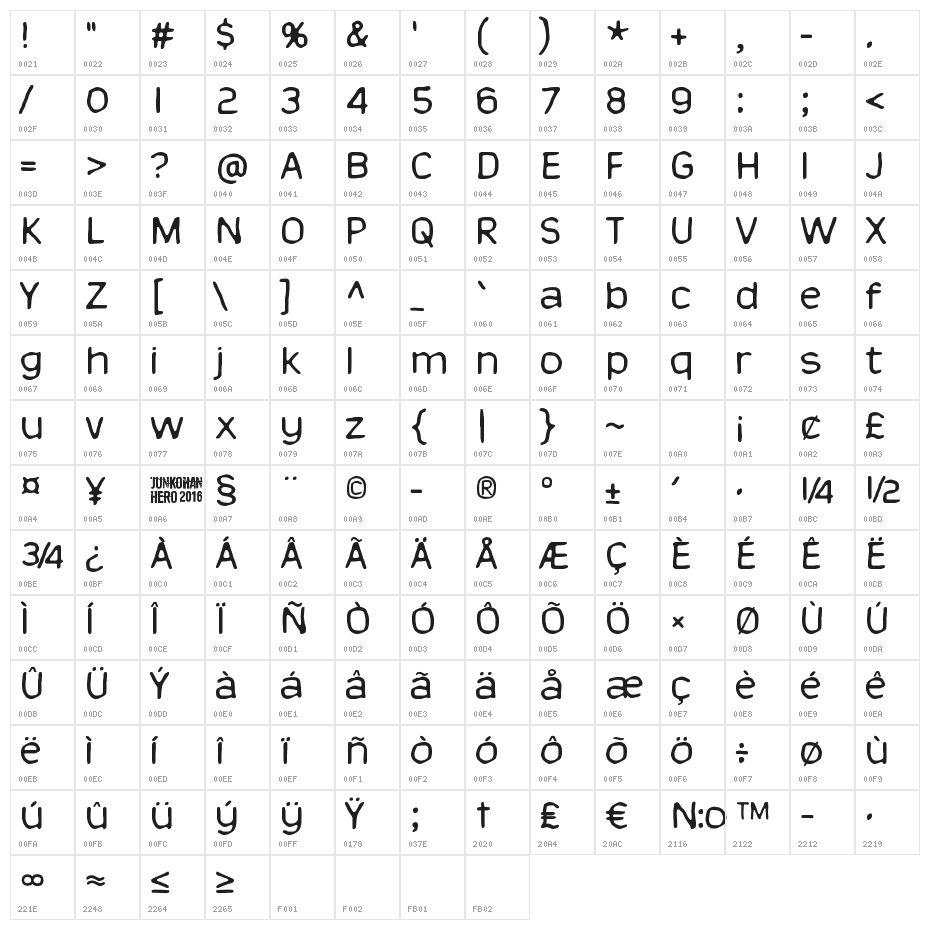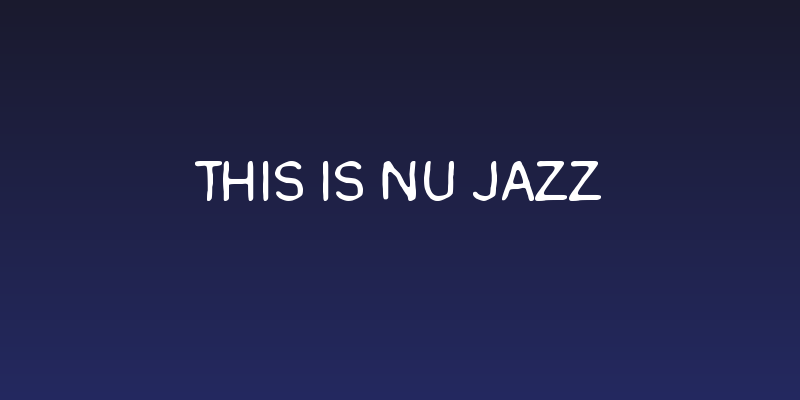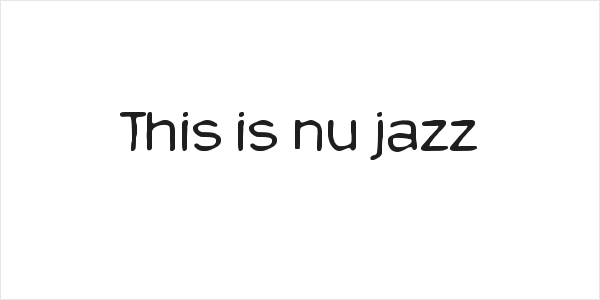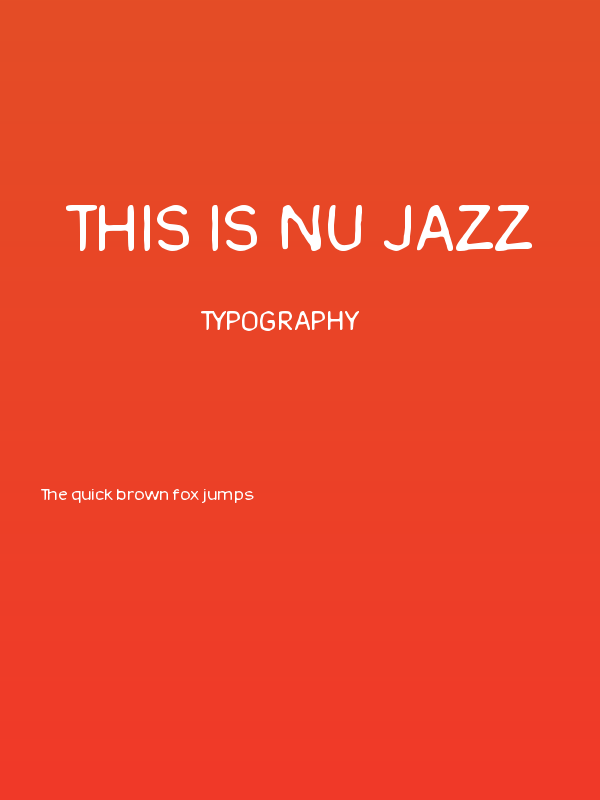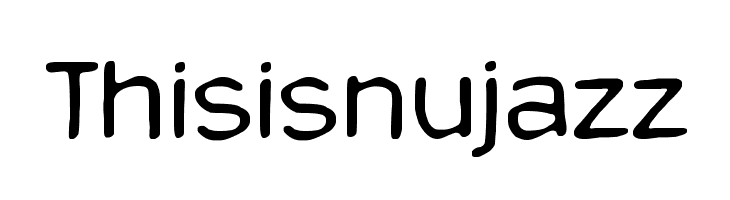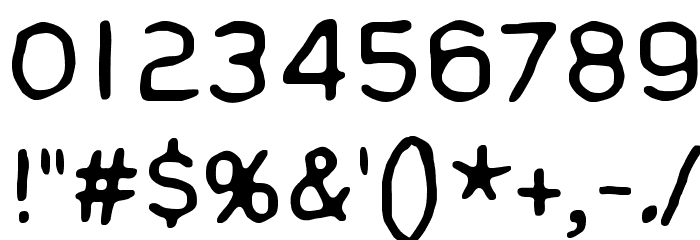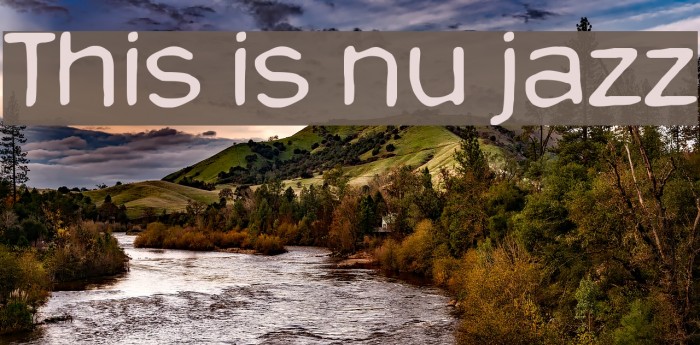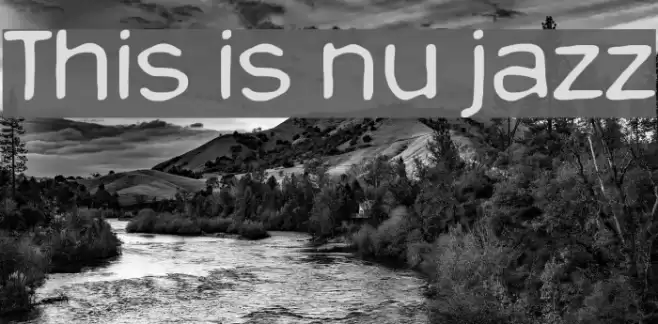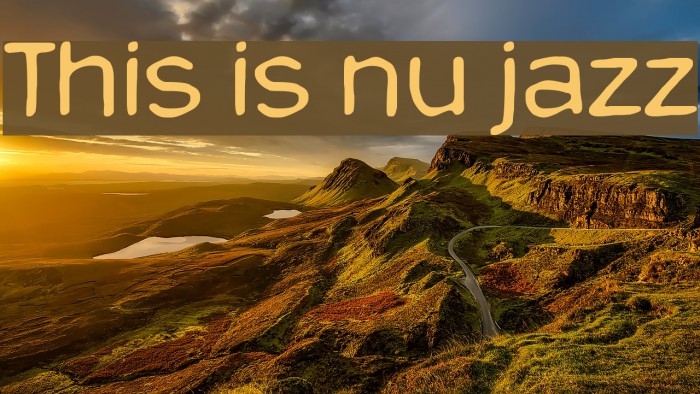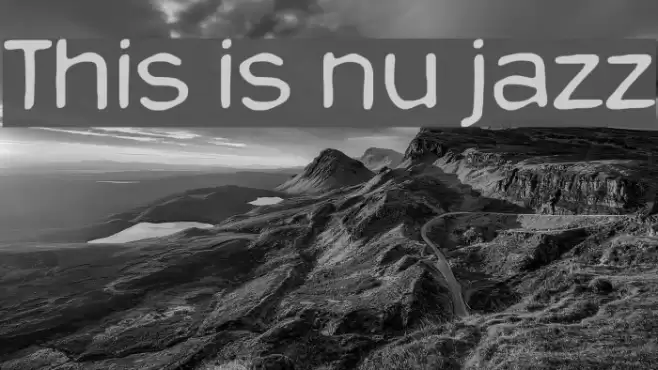
This is nu jazz Font
| Stile generale | Casual |
| Caso d'uso | Headlines, Logos, Informal Text |
| Progetti proposti | Ideal for children's books, casual branding, playful posters, and informal digital content. |